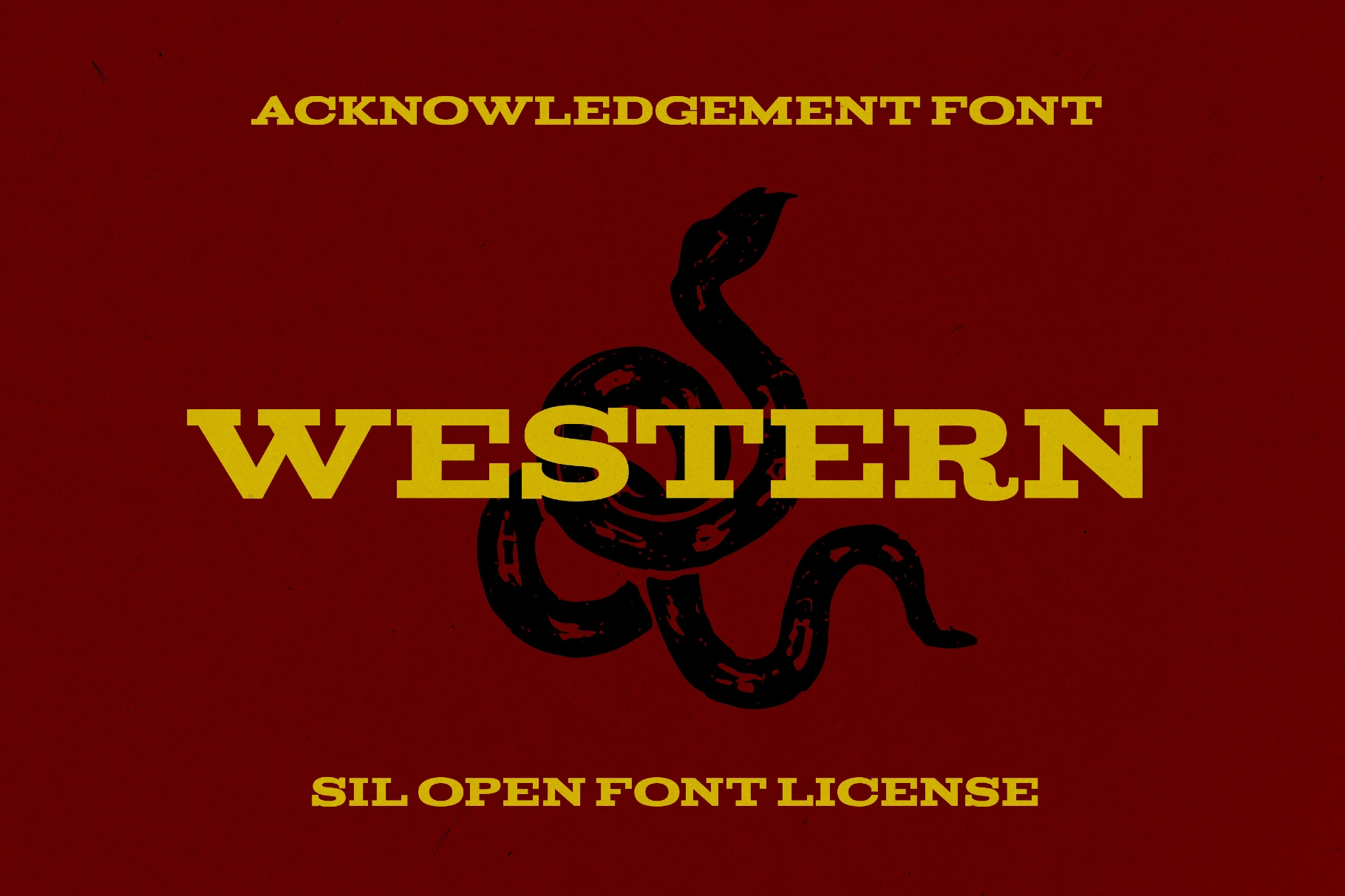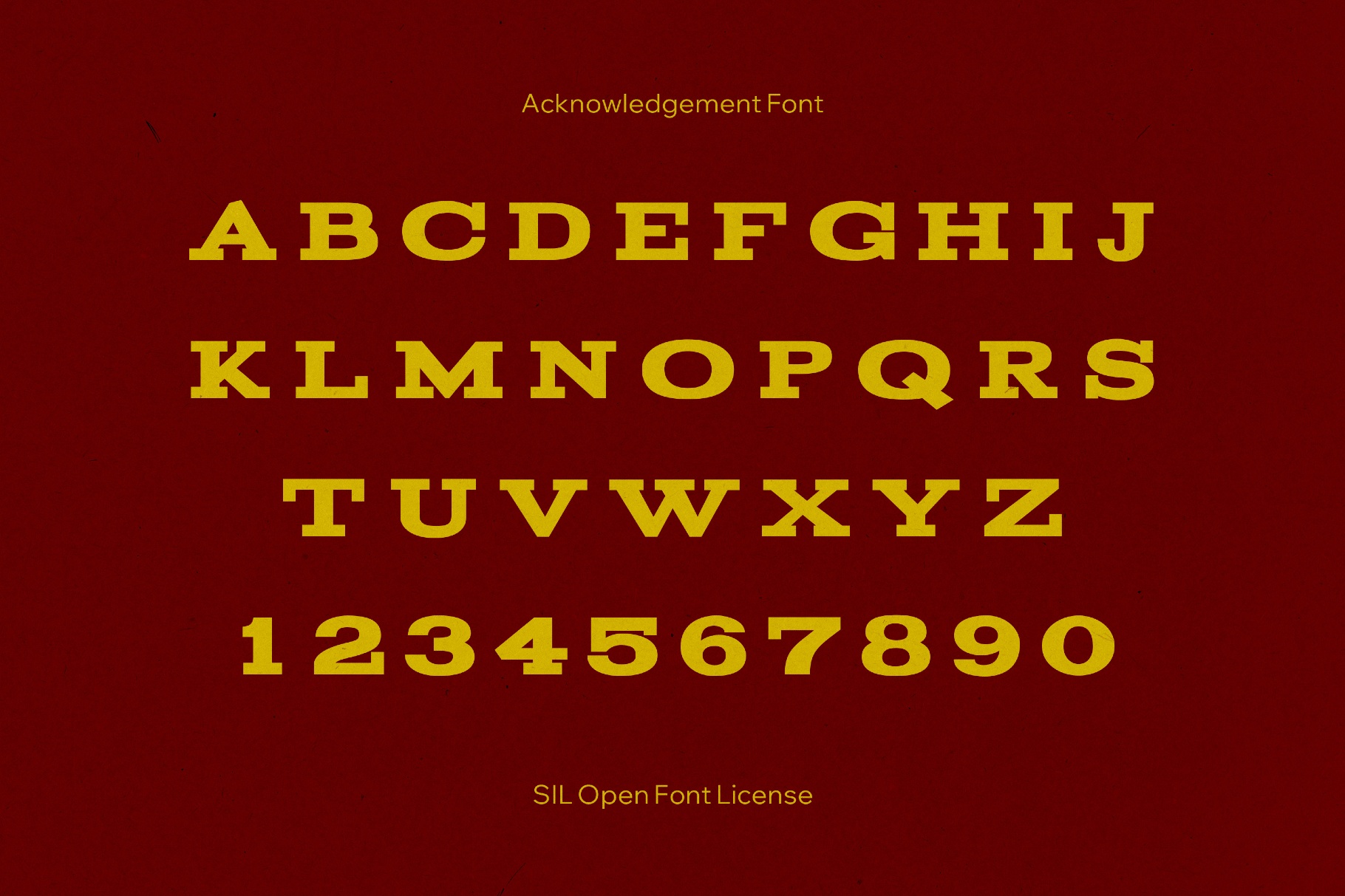
Acknowledgement Font
All-caps forms of Acknowledgement read like vintage western posters and engraved signage. This formal, inscriptional serif recalls mid-century institutional stationery and balances sharp stems with a dignified rhythm. It’s well-suited to certificates, book title pages, academic programs, law or finance branding, memorial pieces, editorial mastheads, invitations, brand guidelines, and packaging.
- Only uppercase letters.